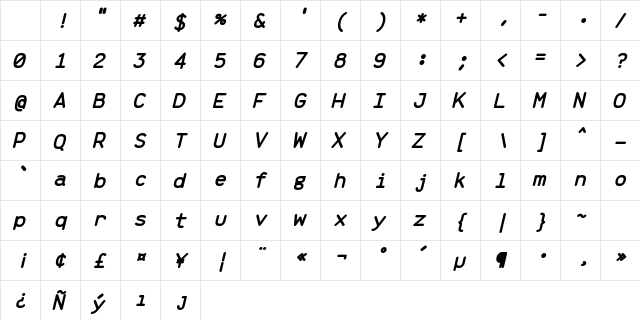
Complete Brass Mono Bold Italic glyph index. Displaying only characters natively supported by Brass Mono Bold Italic font.
Brass Mono uses fixed-width spacing throughout, giving it the structured, systematic character associated with coding environments and technical documentation. The slanted form adds forward momentum and visual energy. Its bold stroke weight gives it real presence on the page.
Pro Tip: Use Brass Mono with slightly increased line-height for extended reading - fixed-width spacing can feel dense in longer passages without extra breathing room.